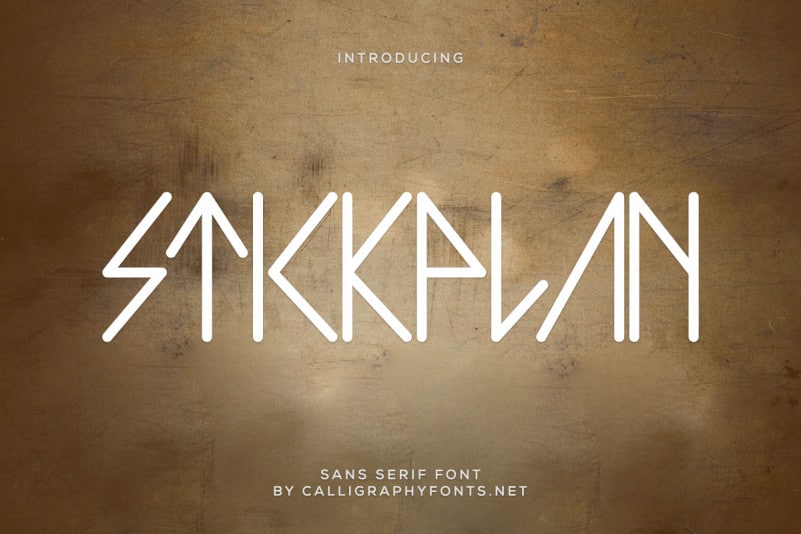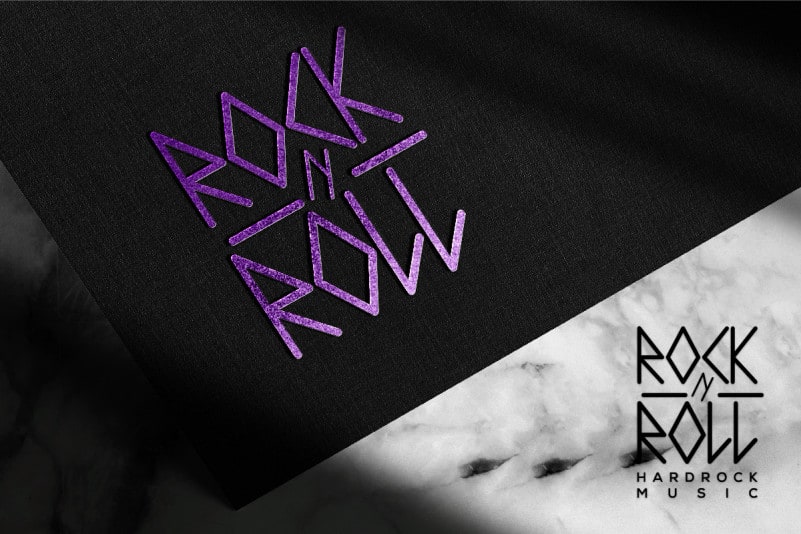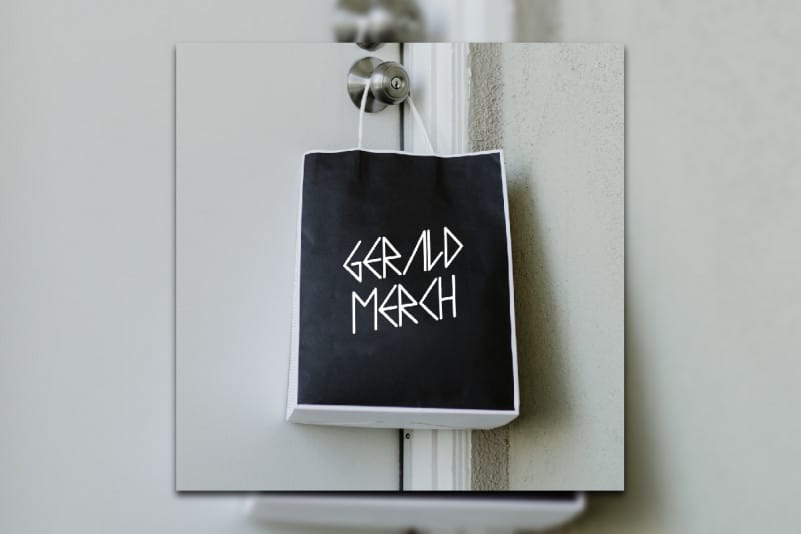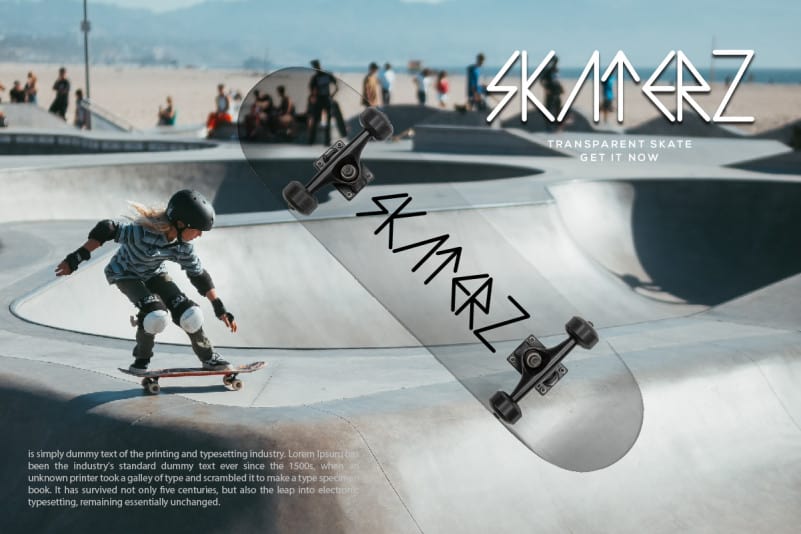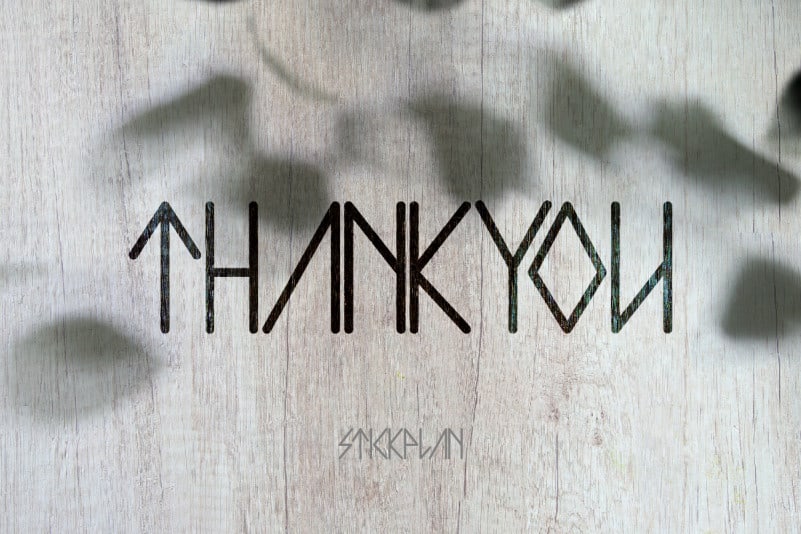
Stickplan Display Font
Stickplan Display Font is a Display Font with fun weird style. The character of the font is fun, unique, futuristic and sophisticated. Stickplan font will be awesome for game, apps, website etc